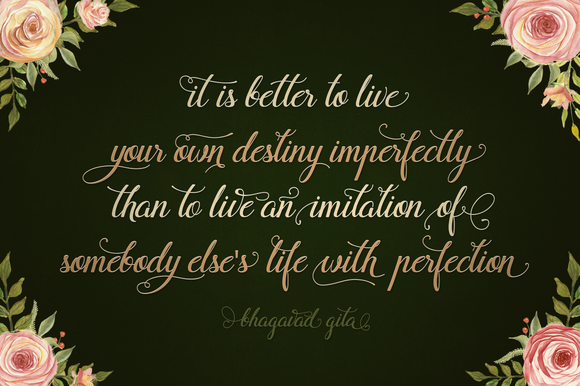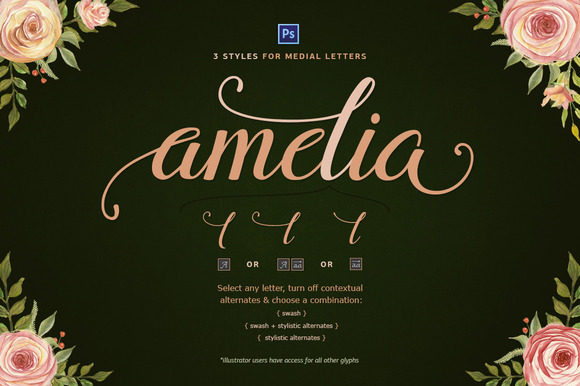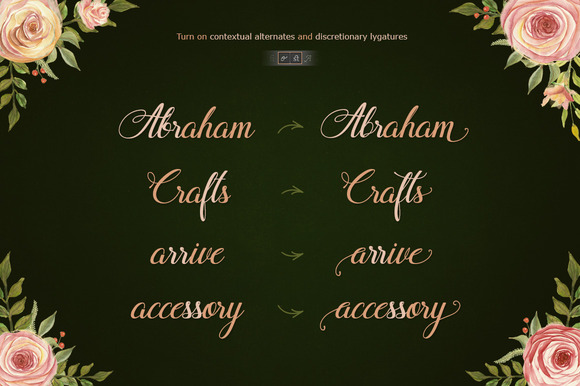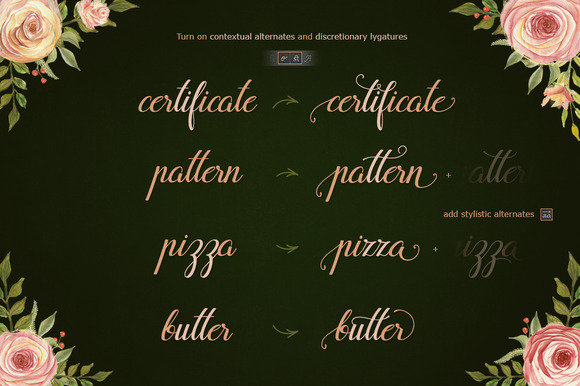
Flamingo Font
About Flamingo Font
Flamingo is a beautiful handcrafted font filled with over 780 high quality unique glyphs.
For each letter in the alphabet you will find around 12 to 20 alternates which leaves you with plenty of opportunity to create something truly unique each time you use it.